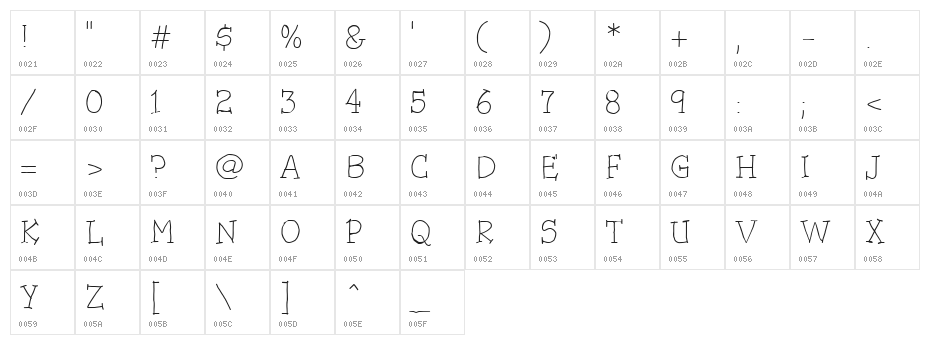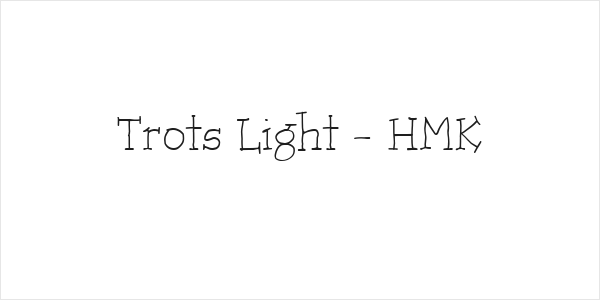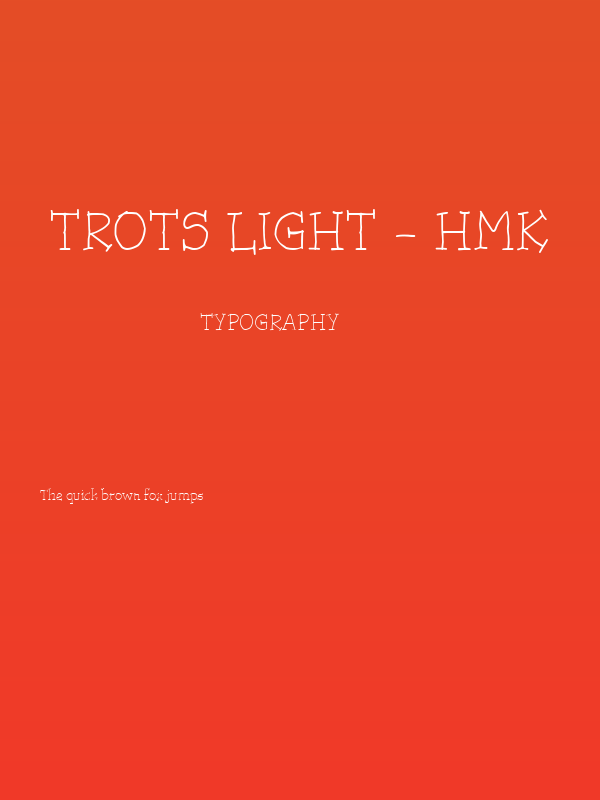
Trots Light - HMK Font
Trots Light - HMK Description
This font features a playful and whimsical design with a hand-drawn aesthetic. The characters are slightly irregular, giving them a charming and informal appearance. The strokes are thin and consistent, with a slight variation that adds to the casual feel. The uppercase letters are tall and narrow, while the lowercase letters maintain a similar style with a bit more roundness. Numbers and special characters follow the same quirky design, making this font suitable for creative and fun projects. The overall look is approachable and friendly, perfect for adding a personal touch to any design.
| Proposed Projects | Ideal for children's books, greeting cards, playful branding, and creative posters. |